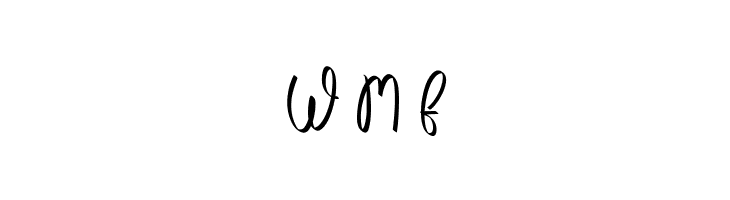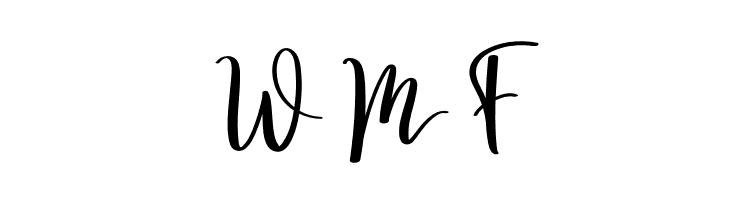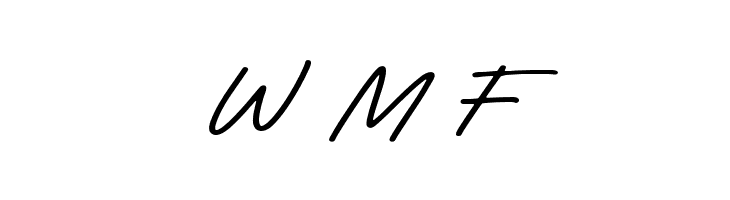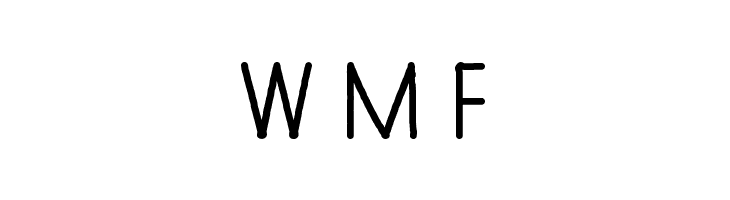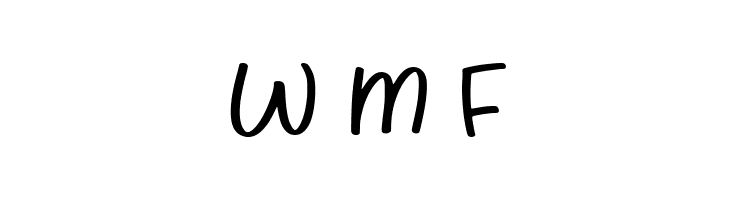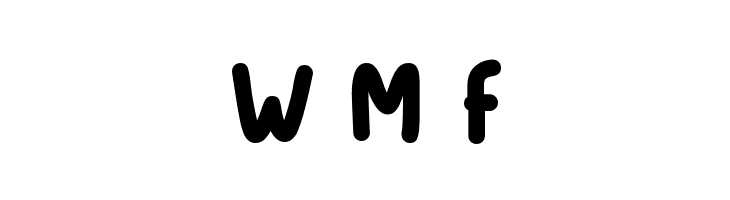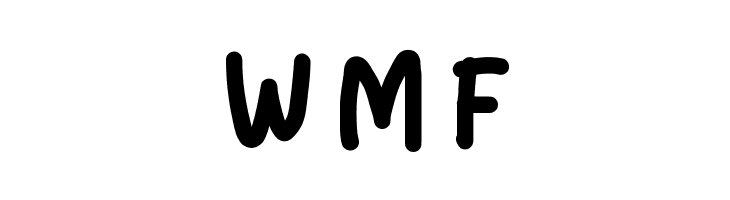
Handwritten-style font with a casual look.
A playful, casual handwritten font with rounded, uniform strokes.
Tall, playful handwritten font with a casual, whimsical style.
A playful, handwritten font with smooth, flowing strokes and a casual vibe.
A playful, handwritten font with a casual and artistic style.
A textured, hand-drawn font with an informal, artistic style.
A playful, handwritten font with irregular strokes and a casual appearance.
Casual handwritten script with rounded, connected strokes.
Playful handwritten script font.
A lively, cursive font with bold strokes and a playful, dynamic style.
A bold, playful font with rounded edges and a hand-drawn feel.
A playful, handwritten font with rounded edges and a casual style.
A whimsical, handwritten script with tall, thin letters and a casual feel.
A lively and expressive script font with fluid, dynamic strokes and a handwritten quality.
A playful, hand-drawn font with an artistic and dynamic style.
Casual handwritten script with rounded, flowing strokes.
Casual handwritten font with rounded, playful forms.
A casual, handwritten script font with a friendly and flowing style.
A bold, playful script font with flowing, decorative letterforms.
Casual handwritten font with rounded, playful strokes.
Elegant cursive script font.
A playful, handwritten font with smooth, rounded edges and consistent stroke width.
A bold, playful font with rounded, hand-drawn characters.